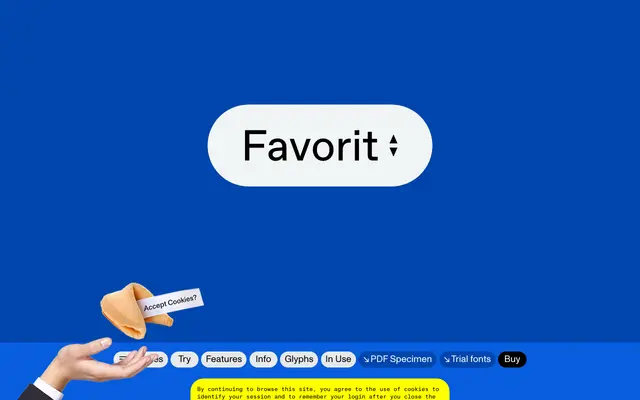
ABC Favorit
A low-contrast grotesque by Dinamo with geometric rigidity, subtle oddities, a smart-underline Lining cut and wide multiscript coverage.
A low-contrast grotesque by Johannes Breyer and Fabian Harb with Erkin Karamemet, Immo Schneider, Arnaud Chemin and Ruggero Magri, sitting between geometric rigidity and small humanist quirks. Five core weights with italics extend into Compressed, Condensed, Extended, Expanded and Mono cuts, plus Lining (with a built-in smart underline that connects descenders) and multiscript siblings across Greek, Cyrillic, Hebrew, Arabic, Devanagari, Georgian, Tifinagh and Hangul. Dinamo's identity workhorse.
Dinamo describes Favorit as a straightforward, low-contrast grotesque combining geometric rigidity with subtle oddities and a humorous touch, with five weights plus italics, an underlined Lining cut, sub-families Extended, Expanded and Mono, and multiscript companions in Greek, Cyrillic, Hangul, Arabic, Hebrew, Devanagari, Georgian and Tifinagh.